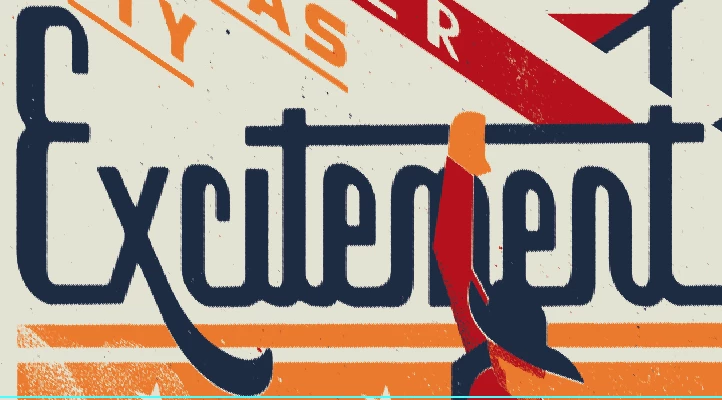
Fonts used in 1930s WPA posters?
Hi, any ideas on what fonts or similar looking fonts are used in this poster? Especially the blue cursive one. Thanks!
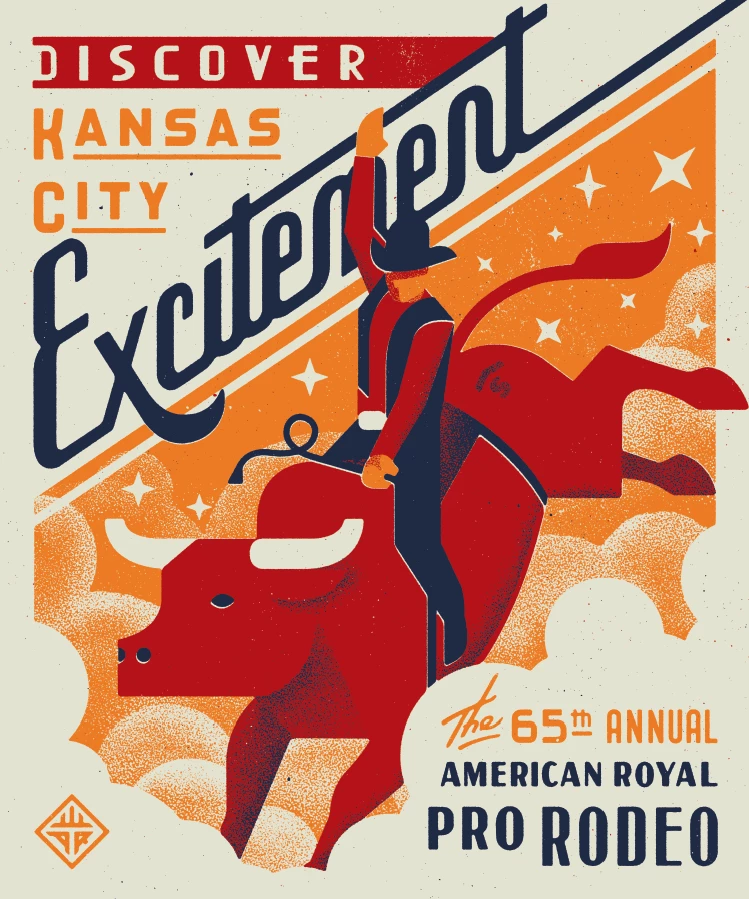
Almost certainly these were not fonts if it's an actual 1930s poster. Fonts in the 1930s were blocks of metal for typesetting, and it's unlikely an artist would have had the tech to use them in artistic type. Certainly the tech didn't exist to skew fonts, and nobody would have made them as skewed blocks. These were the work of a skilled artist, it seems to me, perhaps inspired by a type book. In. On more complex work, an artist, a colourist, and a letterer worked as a team. These were lifetime professions with years of work behind them. We've lost a lot.
Thanks! I knew this was not from the 1930s, but it's really interesting to hear how far technique and technology has come since then. I'm still on the hunt for a script font without a skew to it that looks like its from that era. Way harder than I thought!
I'm sure if you took the time to scour the collections at MyFonts.com and similar sites you could find a modernist art deco font easily, though of course it may not necessarily be a perfect match.